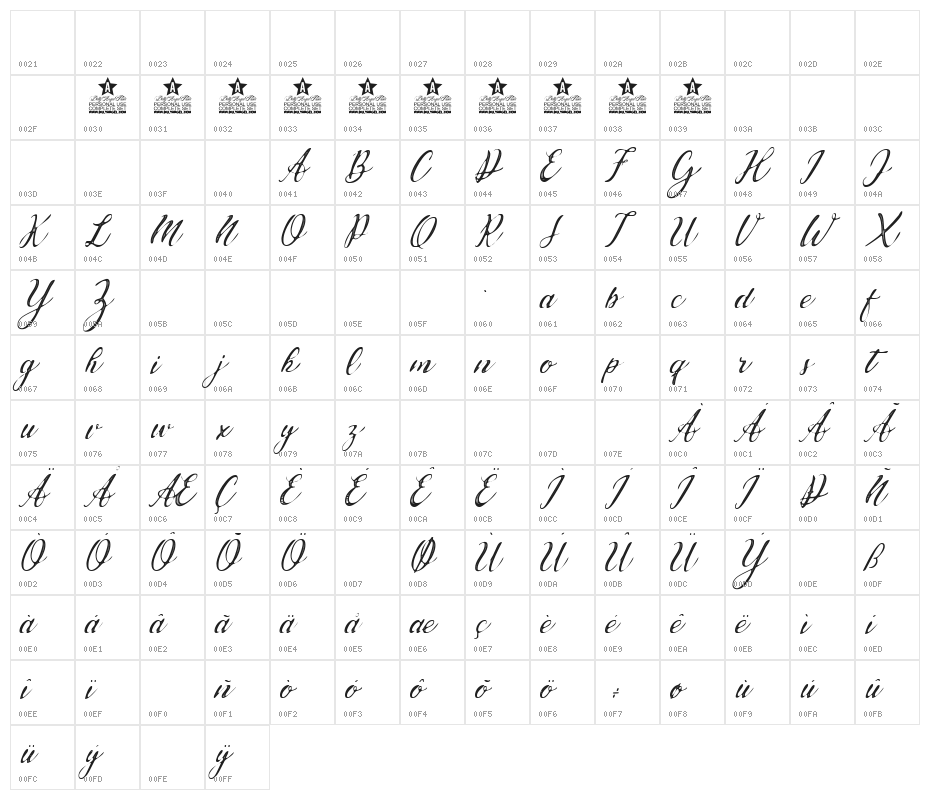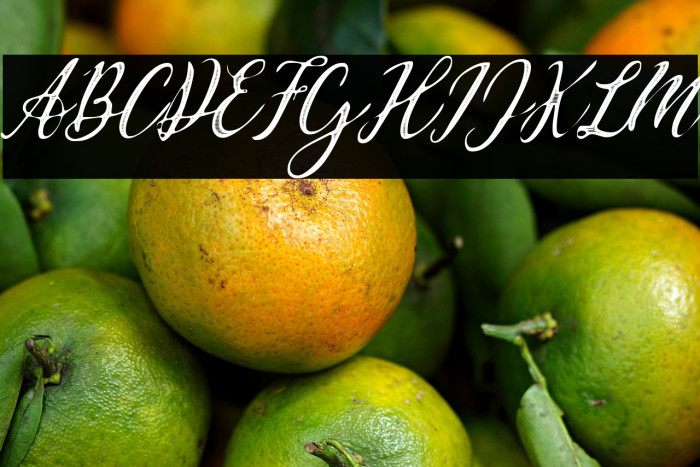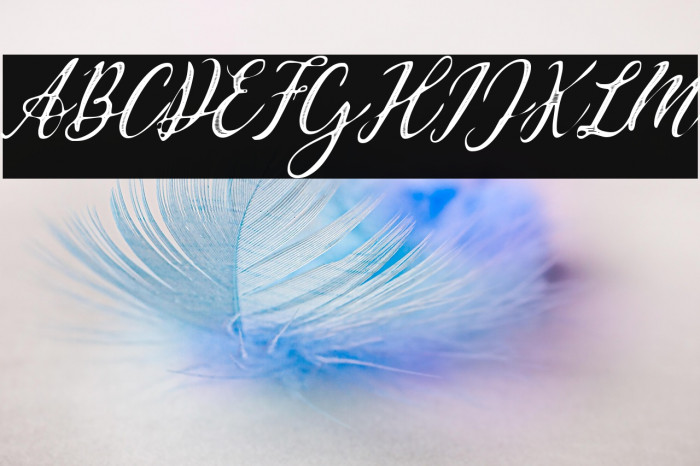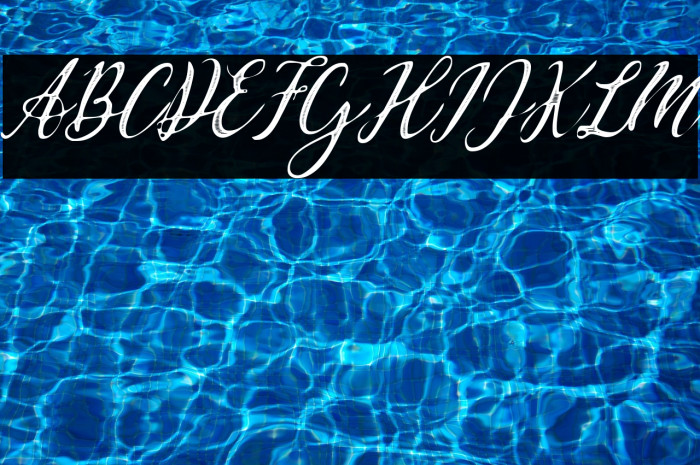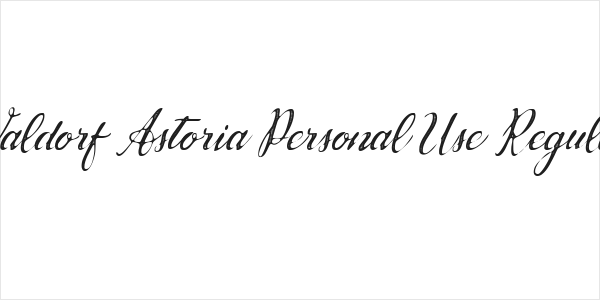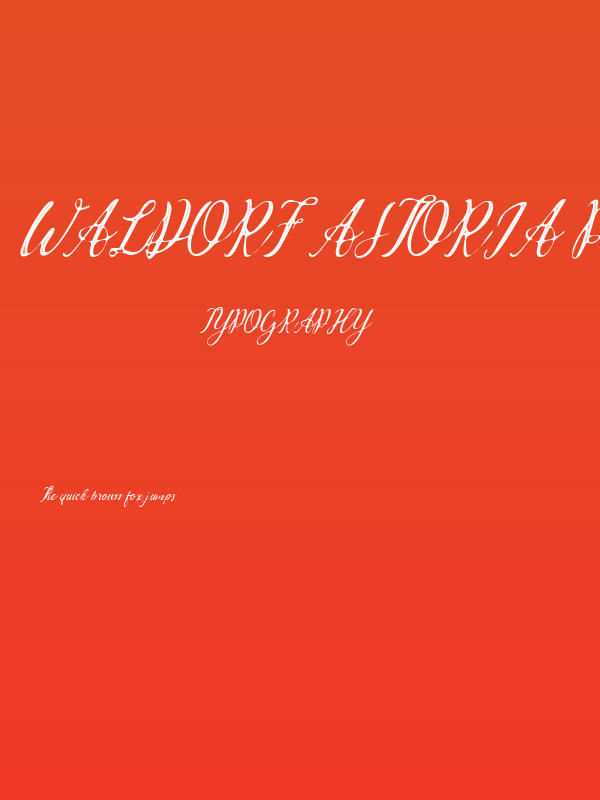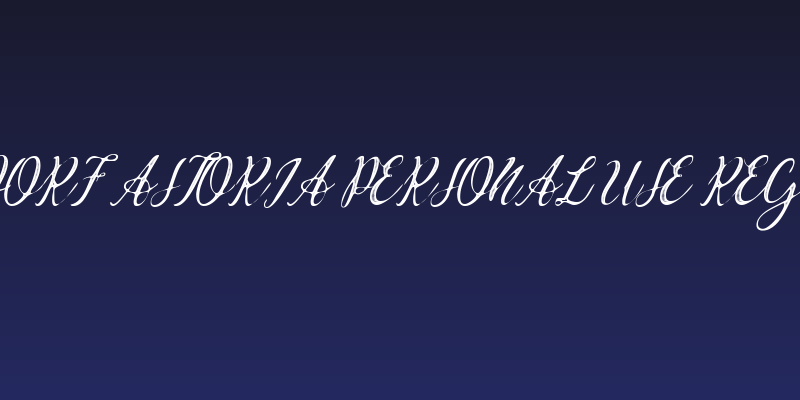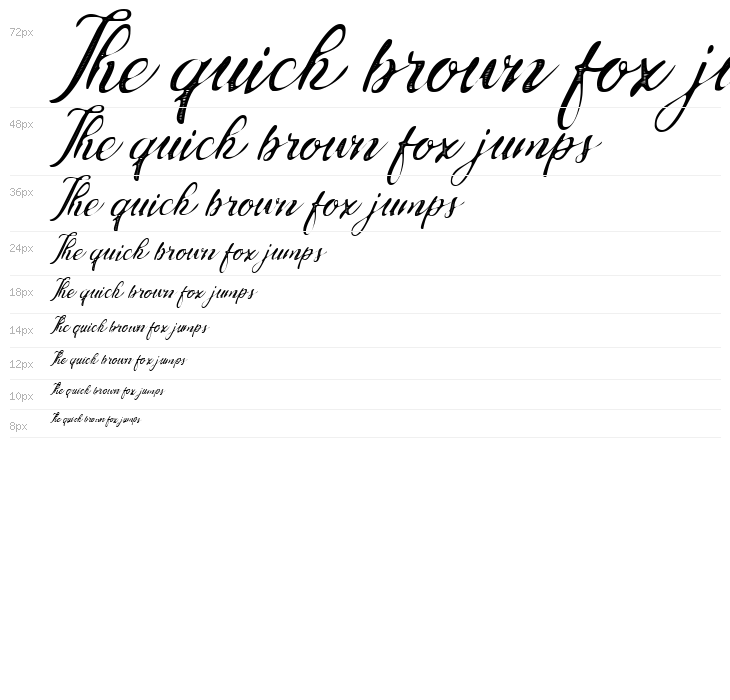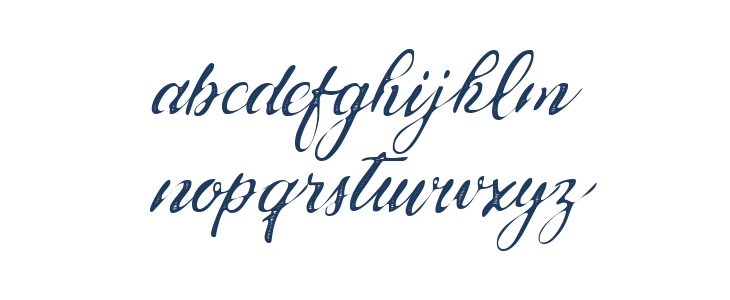
Waldorf Astoria Personal Use Regular Font
Waldorf Astoria Personal Use Regular Description
This elegant script font features a flowing, cursive style with high contrast between thick and thin strokes. The letters are interconnected, creating a seamless and sophisticated appearance. The uppercase letters are ornate and decorative, while the lowercase letters maintain a graceful and fluid form. The font exudes a sense of luxury and refinement, making it ideal for formal invitations, branding, and high-end product packaging. Its intricate design and stylish flair make it stand out in any application.
| Overall Style | Elegant, Luxurious |
| Proposed Projects | Ideal for wedding invitations, luxury branding, high-end product packaging, and elegant stationery. |